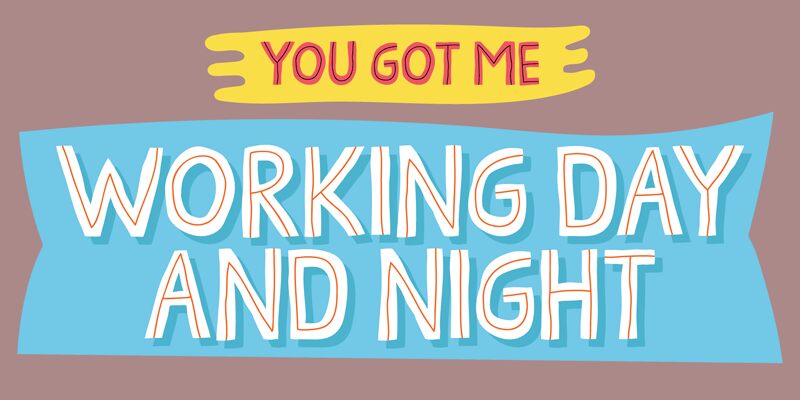
Cherry Dance DEMO Regular
Cherry Dance font by Pizzadude is a striking display typeface whose style is simply fun. Looking at the font as a whole, it has chunky and irregularly-shaped letters which align unevenly, creating an eccentric feel. Moreover, the retro influence in this free cartoon font adds to its all-around playful demeanor.
Use Cherry Dance in material related to kids’ advertisements, book covers, illustrations, video games titles or posters. It suits comic books and magazines well in addition to social media branding, embedded videos’ editing and occasional banner design.